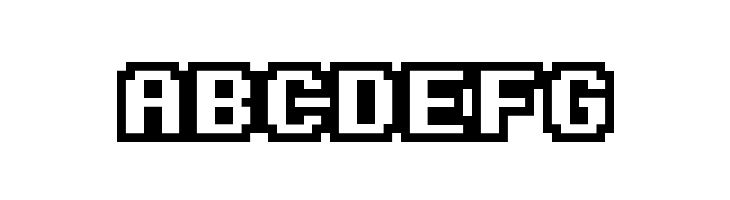
I've seen that face before Font
- Font: I've seen that face before
( Font by Sven Stuber - www.superlooper.de )
A pixelated, geometric font inspired by retro digital displays.